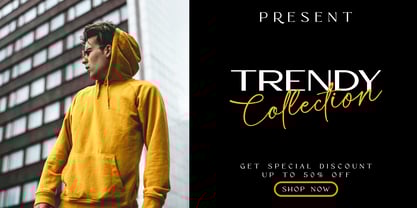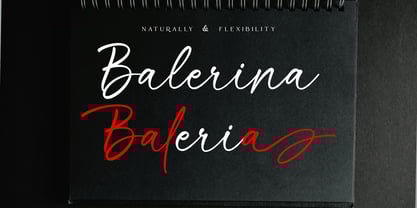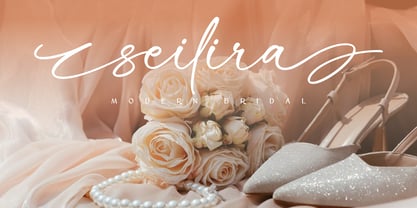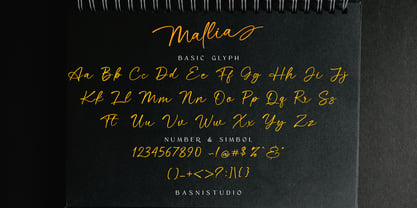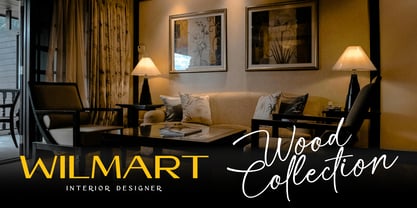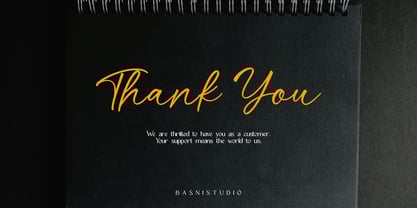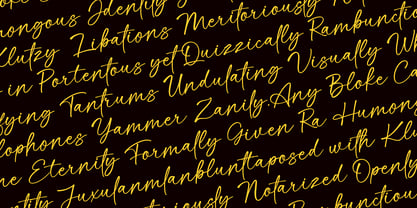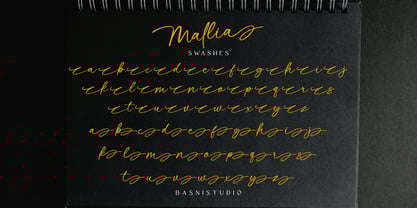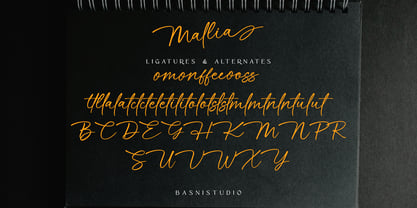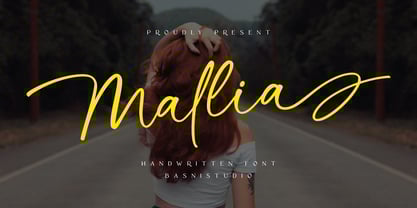
Mallia
Die Schriftfamilie Mallia wurde von Bery Arisandi entworfen und von Basnistudio veröffentlicht. Mallia enthält 1 Stile. Mehr über diese Familie
Introducing Mallia, an Flawless handwritten font crafted with authentic Brush for Natural & Casual touch for everything from branding and social media to invitations and packaging. Elegant & Casual – Perfect for tagline, quotes, greeting cards, and more Authentic Handwritten Feel – Created with authentic Brush for Natural & Casual Easy to Use – Works seamlessly with all major design programs What’s Included: Uppercase & lowercase letters Ligature & Alternates Swashes Numbers & punctuation Multilingual Support ( Support for 90 languages ) If you have any questions please don’t hesitate to contact me. Thank You Very Much
Hi introducing we are BasnistudioHere we design modern, unique and Amazing Font,perfect for branding, websites, design invitation, and editorial designs. Includes all upper and lower case letters, multilingual support, punctuation, binding and initial and final swash. everything can be easily accessed using software that supports OpenType.we hope our Amazing Font can make your Amazing project easier,